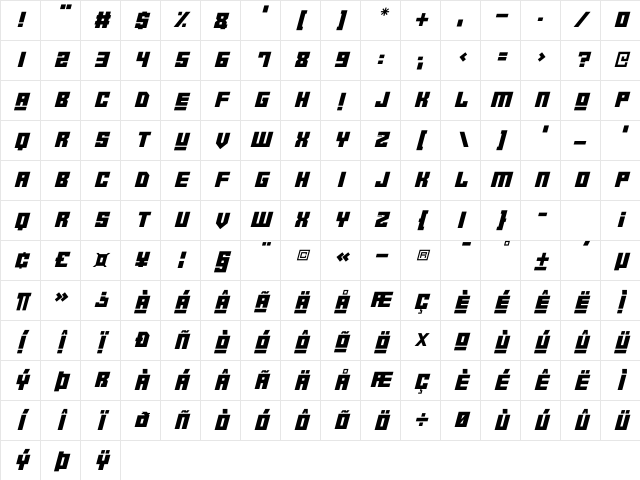
Robot Crush Italic Free Font
Robot Crush Italic
Complete Robot Crush Italic glyph index. Displaying only characters natively supported by Robot Crush Italic font.
Design Context for Robot Crush
Robot Crush is a composed and adaptable typeface that performs quietly and consistently across a wide range of design contexts. The slanted form adds forward momentum and visual energy.
Pro Tip: Use Robot Crush for emphasis, pull quotes, and subheadings where its slanted energy can add rhythm to the layout.